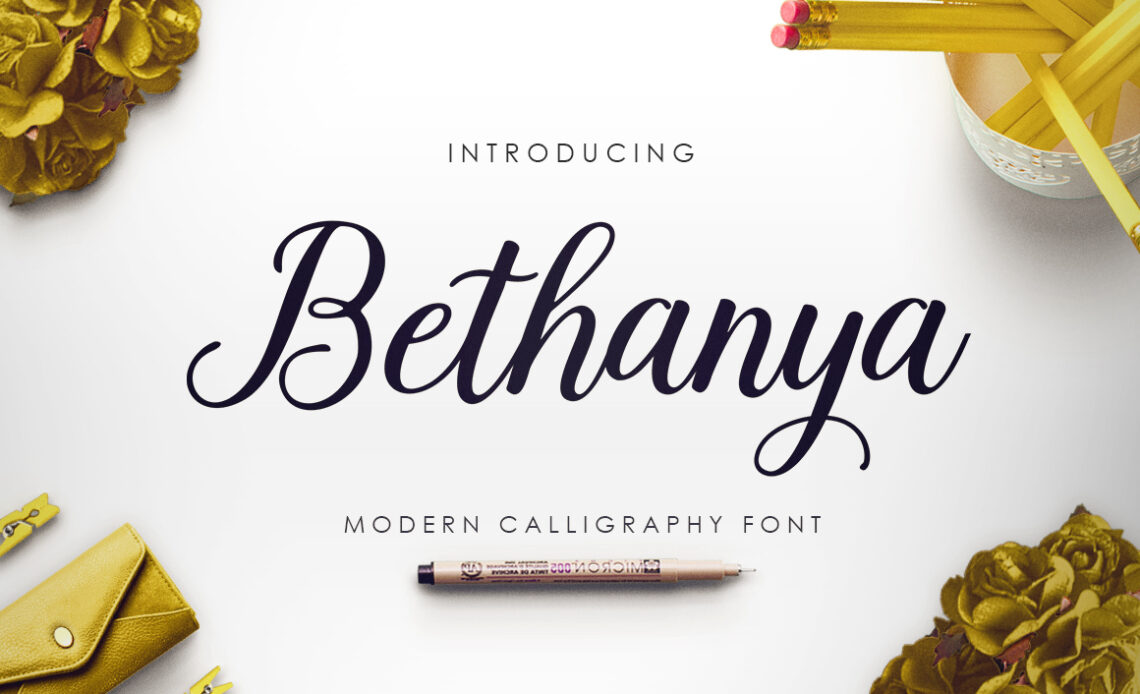
Unleash the beauty of Bethanya Font, a captivating script font that adds a touch of elegance and charm to your creative projects. Dive into a world of flowing strokes, delicate curves, and stunning swashes that bring a sense of sophistication to your designs.
Crafted by the renowned Megatype foundry, Bethanya Font is a modern calligraphic masterpiece that combines timeless beauty with contemporary flair. Its fluid lines and graceful flourishes evoke a sense of artistry that elevates your designs to new heights.
Whether you're working on corporate branding or personal projects, Bethanya Font is the perfect choice for adding a touch of personality and style. Its versatility shines through in logos, invitations, greeting cards, posters, social media graphics, and any project where you want to make a statement.
Step into a world of creative possibilities with Bethanya Font. Let your imagination soar as you explore its endless applications. Create stunning wedding invitations that capture the romance of the occasion. Design elegant logos that exude professionalism and creativity. Craft social media posts that stand out from the crowd with their unique visual appeal.
Experience the magic of Bethanya Font today and see how it transforms your designs into works of art. Embrace the beauty of calligraphy and let your creativity flow freely. Dive into a world of endless possibilities and create designs that leave a lasting impression.